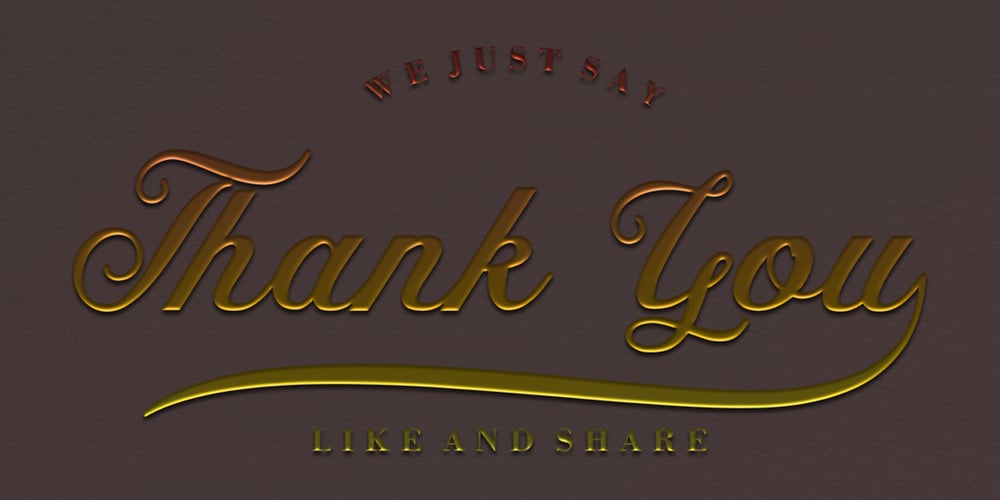
The Red Devil Script Font Family was designed by Iqbal Amsar Hidayat and published by Bal Studio. The Red Devil Script contains 1 styles and family package options. The Red Devil is a handmade script font with clear style and creative projects such as logos, printed quotes, invitations, cards, product packaging, headers, logos, letterhead, posters, clothing designs, labels, as you can use the illustrative qualities of the shapes to create an art piece. The Red Devil Script come with uppercase letters, lowercase letters, numbers, punctuation, and so many variations on each character including alternative opentype, general binder. It’s fun to use because each word can be transformed to you like. To enable the OpenType Stylistic alternates, you need a program that supports OpenType features such as Adobe Illustrator CS, Adobe Indesign & CorelDraw X6-X7, Microsoft Word 2010 or later versions. How to access all alternative characters, using Windows Character Map with Photoshop: https://www.youtube.com/watch?v=Go9vacoYmBw How to access all alternative characters using Adobe Illustrator: https://www.youtube.com/watch?v=XzwjMkbB-wQ The Red Devil Script is coded with PUA Unicode, which allows full access to all the extra characters without having special designing software. Mac users can use Font Book , and Windows users can use Character Map to view and copy any of the extra characters to paste into your favourite text editor/app. Thanks so much for looking and please let me know if you have any questions.